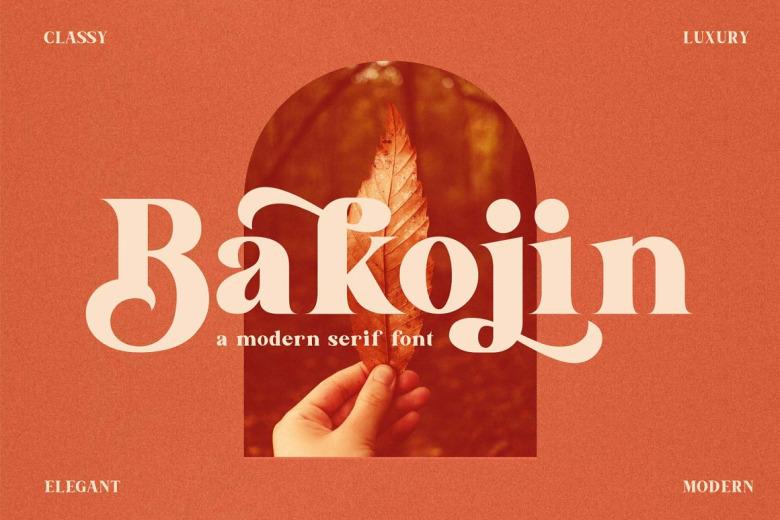
Bakojin Font
Bakojin Serif Font – This modern serif typeface features serifs. Perfect for gorgeous logos & titles, Bakojin will pair beautifully with many fonts and work well with whatever project you’re working on.
Bakojin Serif Font